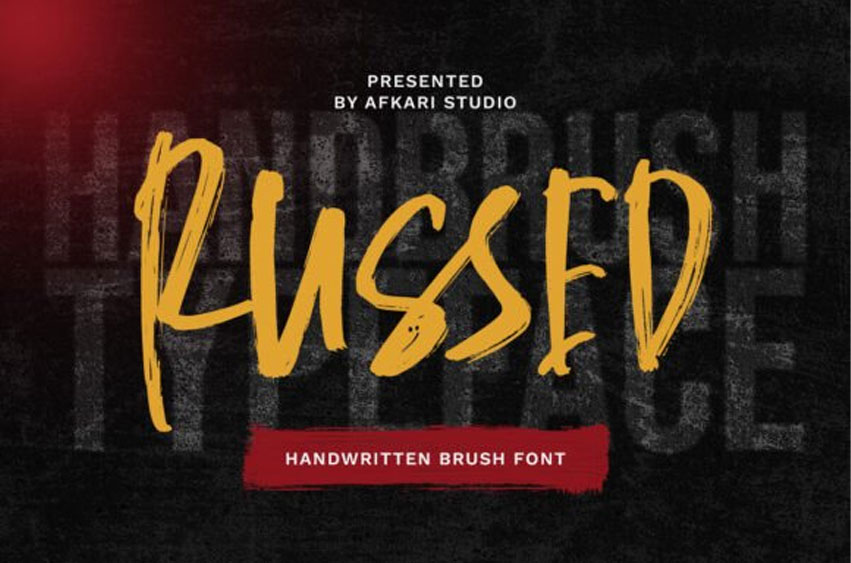
Russed Font Radiate raw intensity and personal charisma with Russed. As a bold, handwritten brush font, Russed captures the spirit of spontaneity, echoing the genuine love and passion for brushwork in its design. With an authentic handmade feel, Russed is the ideal pairing for designs needing to balance creativity with a lively gusto.
Its robust character lifts your projects, making an impression with its distinct allure. Russed doesn’t simply supplement your work, it vivifies it, guaranteeing your creations demand attention. Whether illuminating logos, posters, packaging, social media content, or merchandise, Russed infuses your words with a dynamic, artistic edge.
Its organic flow and textured edges convey the sensation of words being artfully brushed onto a canvas. Experience the captivating charm of Russed, where natural and raw energy beautifully collide with creativity.